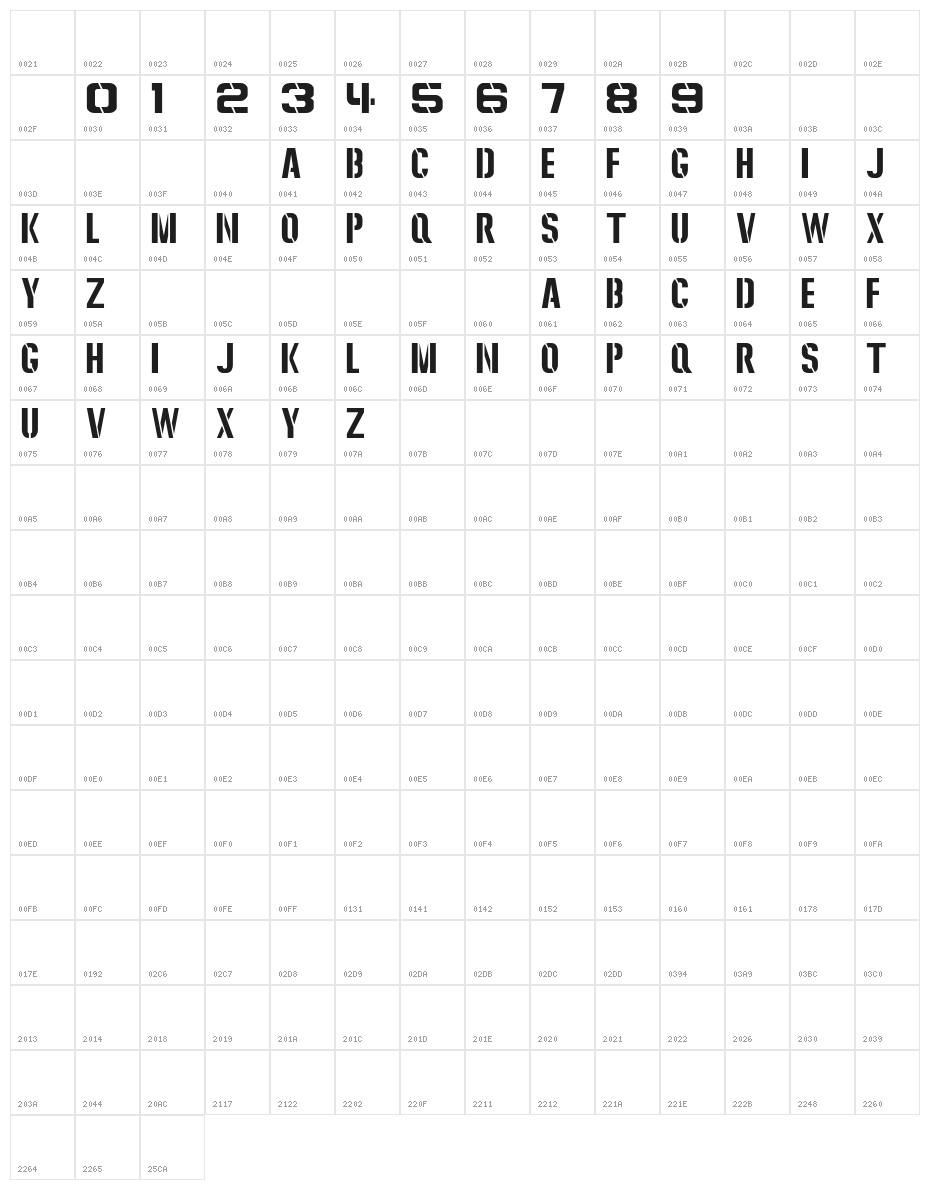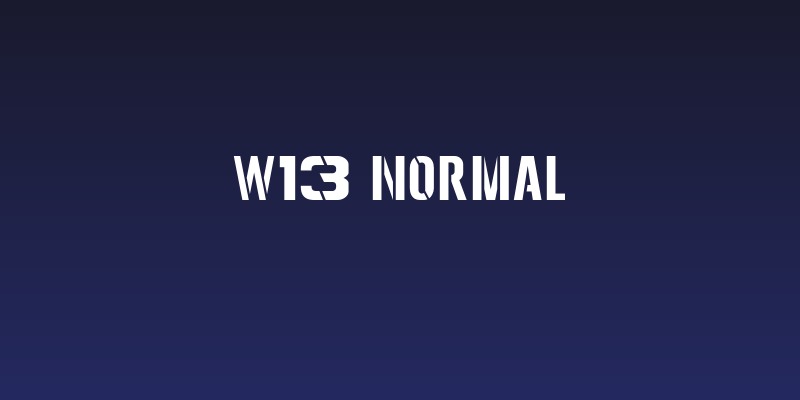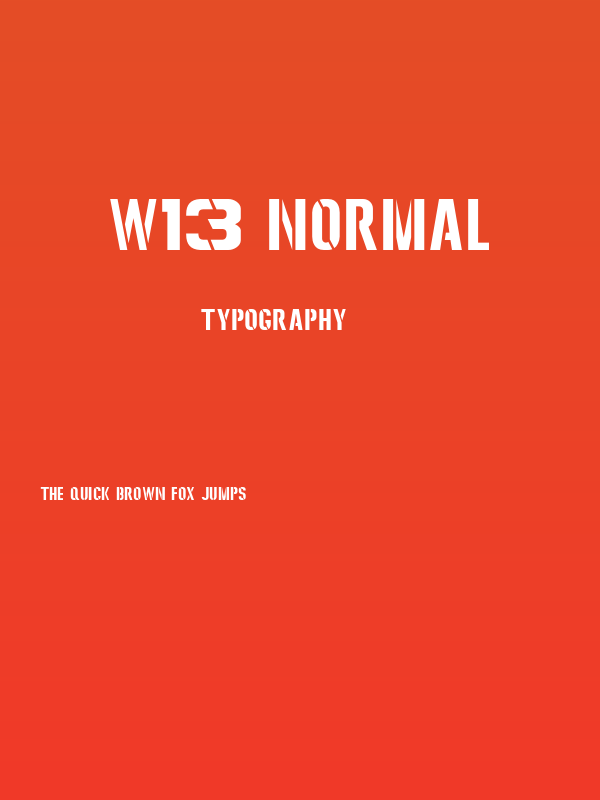
W13 Normal Font
W13 Normal Description
This font features a bold, geometric style with a distinct stencil-like appearance. The characters are constructed with sharp, angular cuts that create a dynamic and industrial feel. The uppercase letters are uniform in height, while the numbers maintain a consistent width, enhancing readability. The design incorporates negative space strategically, giving it a modern and edgy look. This font is ideal for projects that require a strong visual impact, such as branding, posters, and signage. Its unique style makes it stand out, while the clear structure ensures legibility.
| Proposed Projects | Ideal for branding, posters, signage, and any project needing a strong visual impact. |